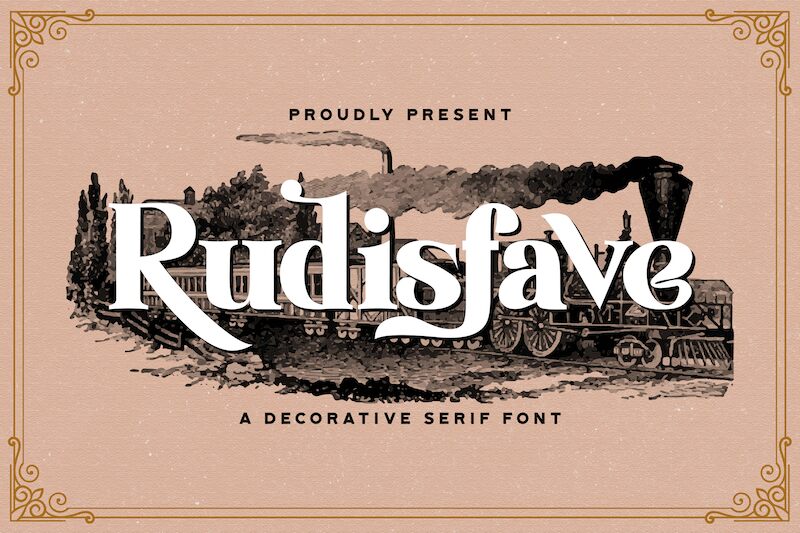
Rudisfave
Rudisfave font is a striking bold decorative serif typeface from StringLabs Creative Studio. The elegant design of this typeface gives it an amazing and elegant appearance, while still preserving readability and clean look. Get inspired by its unique style! It’s ready to elevate your typography projects to a higher level.
Rudisfave font is perfect for headlines, logos & branding, photography, invitations, wedding designs, stationery, social media posts, product packaging, product designs, label designs and many more.